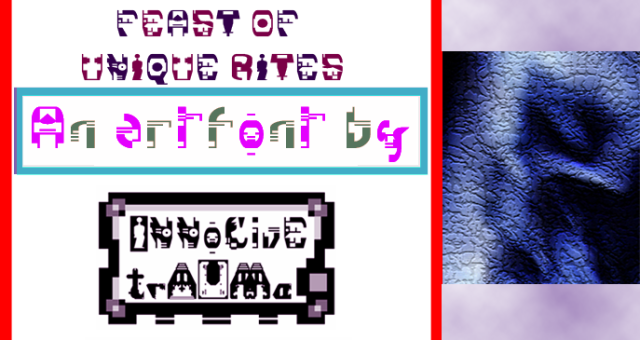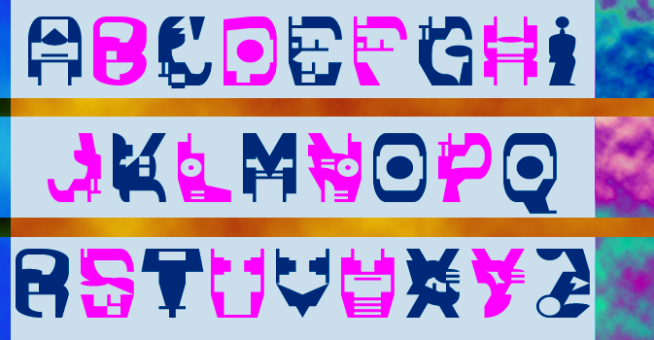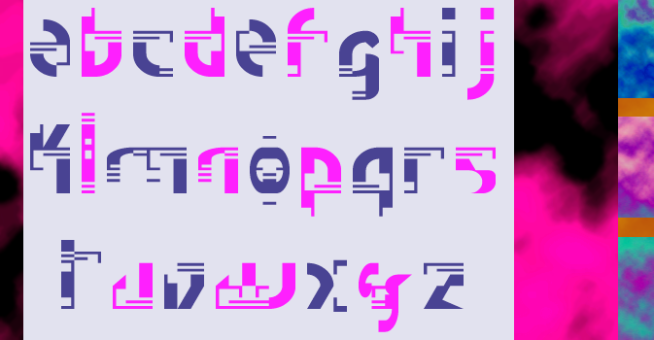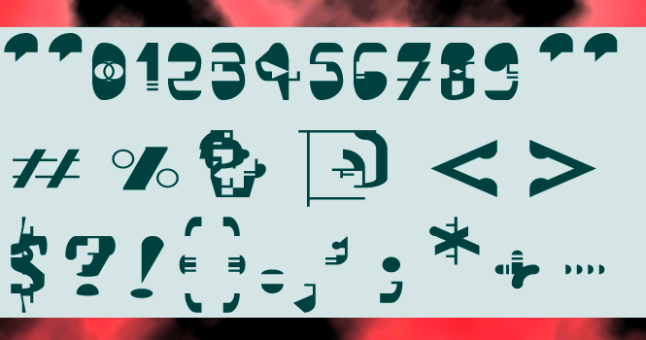
trAUMa 17 / Feast Of Unique Rites
"Feast Of Unique Rites", like all the "trAUMa" series, works at the frontier between Art & Type Design, Figuration & Abstraction, each font is a comprehensive world in which every glyph is a "living" entity. But put together they can produce your messages in the most accurate way.